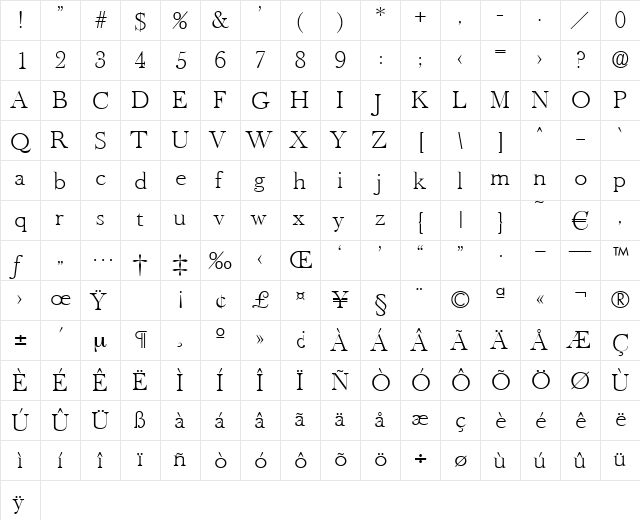
Oldbaskerville-Xlight Regular
Design Context for Oldbaskerville-Xlight Typeface
Oldbaskerville-Xlight offers clean, dependable letterforms without strong stylistic allegiance, making it a practical choice for designers who need flexibility. Its slender proportions lend an understated elegance to any composition.